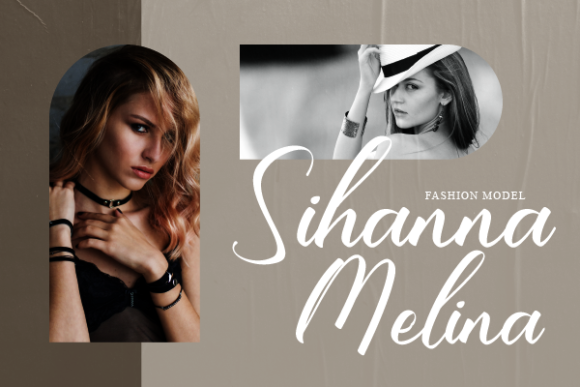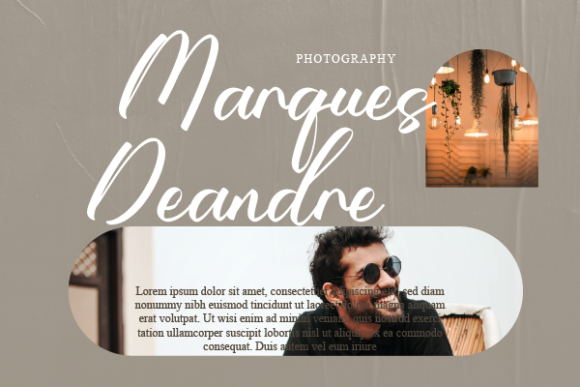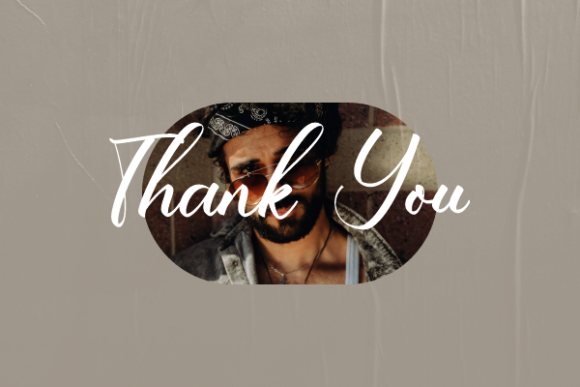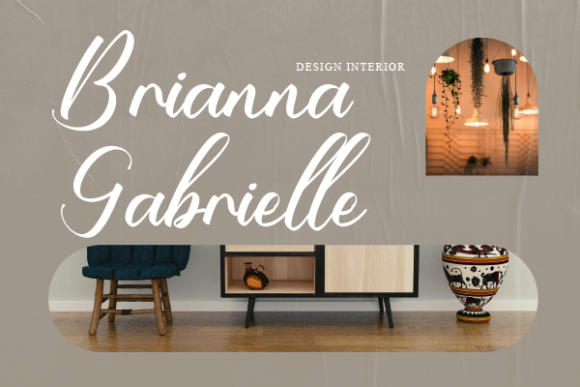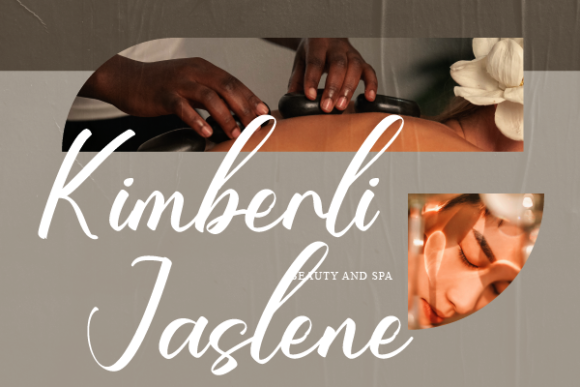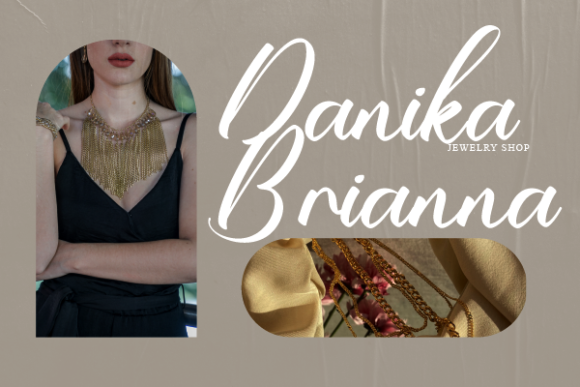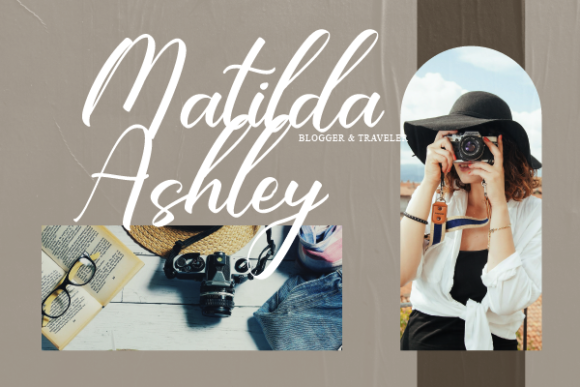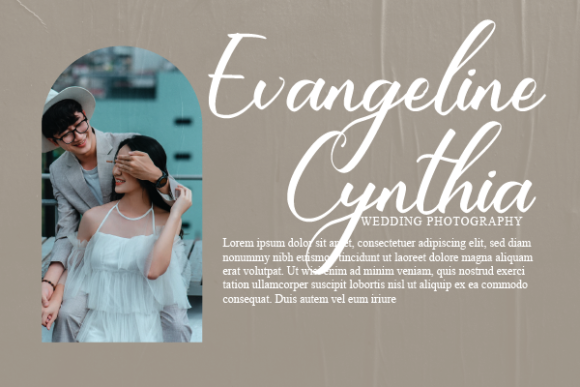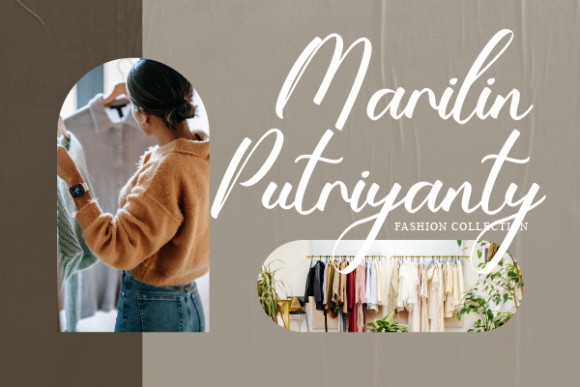
Rihanna Theresa Font
Rihanna Theresa Font: Elegant Script for Creative Designs
The Rihanna Theresa font is a captivating handwritten script that exudes elegance and sophistication. Its graceful strokes make it ideal for various creative projects, adding individuality to designs.
Versatility in Branding and Design
In branding and logo design, Rihanna Theresa adds a distinctive element. Its flowing script conveys creativity, perfect for innovative brands.
For wedding invitations and event stationery, this font brings a romantic quality. Its delicate appearance complements love and celebration themes, setting a special tone.
Rihanna Theresa in Editorial and Digital Media
In editorial layouts, Rihanna Theresa’s unique style adds personality. It creates engaging visuals for magazine articles and book covers.
On social media and websites, the font stands out with its timeless appeal. It adds an artistic touch to captions, headlines, and graphics.
Creative Applications of Rihanna Theresa
Crafting and DIY projects benefit from Rihanna Theresa’s elegance. It adds authenticity to personalized gifts and handmade cards.
Artistic Expressions with Rihanna Theresa
This font enhances artistic expressions, from typography art to digital illustrations. It brings creative visions to life with elegance.
Conclusion: Rihanna Theresa – A Font for Artistic Flair
Rihanna Theresa is a remarkable script that transforms designs into art. Its distinct style invites creativity, allowing you to create captivating and spectacular designs. Whether for personal or professional use, this font consistently delivers elegance and individuality.